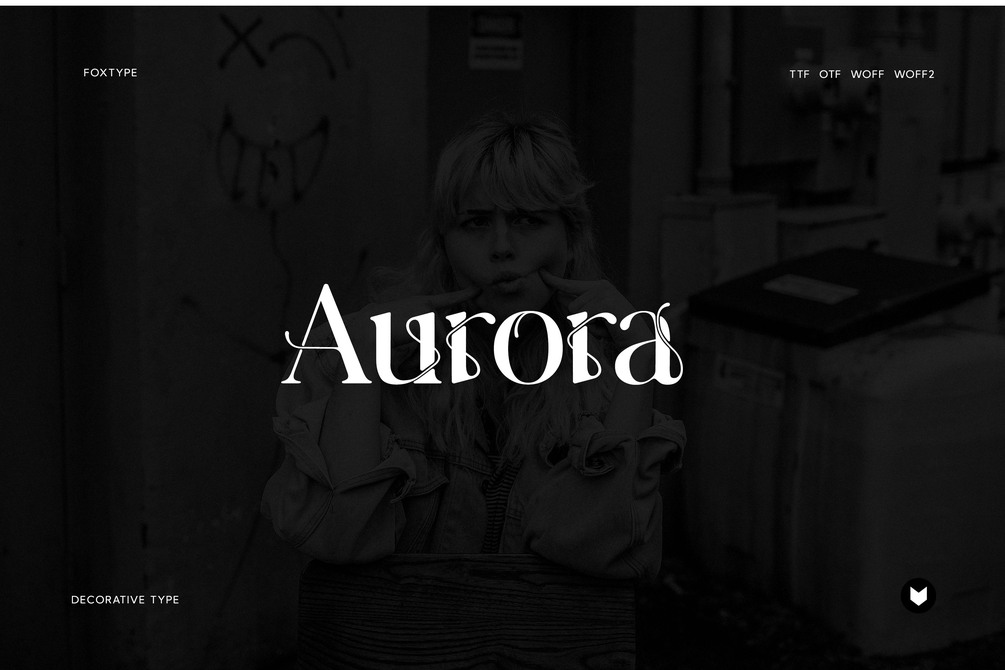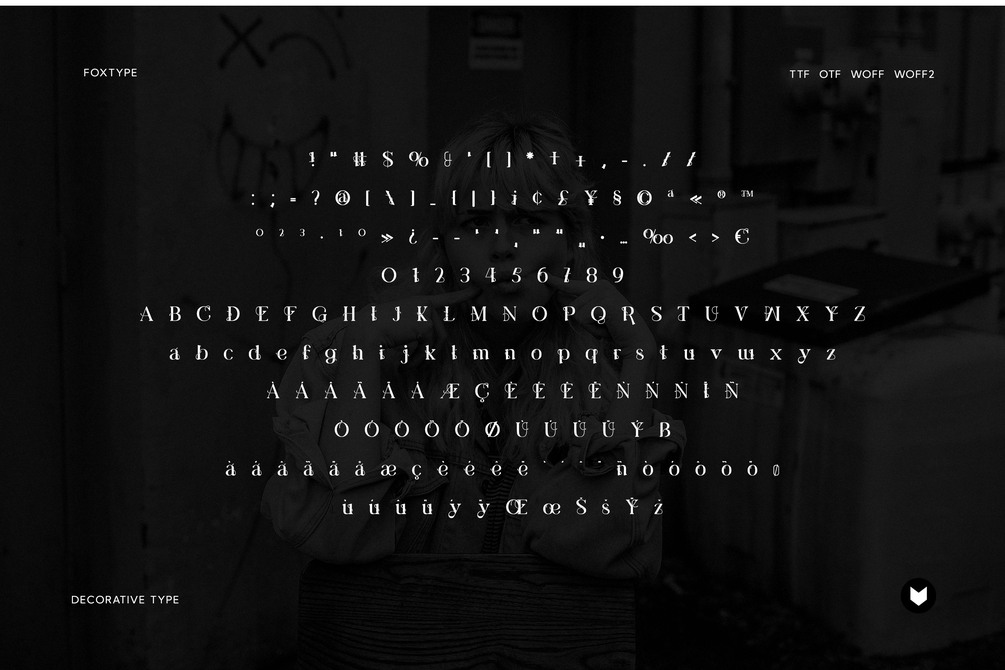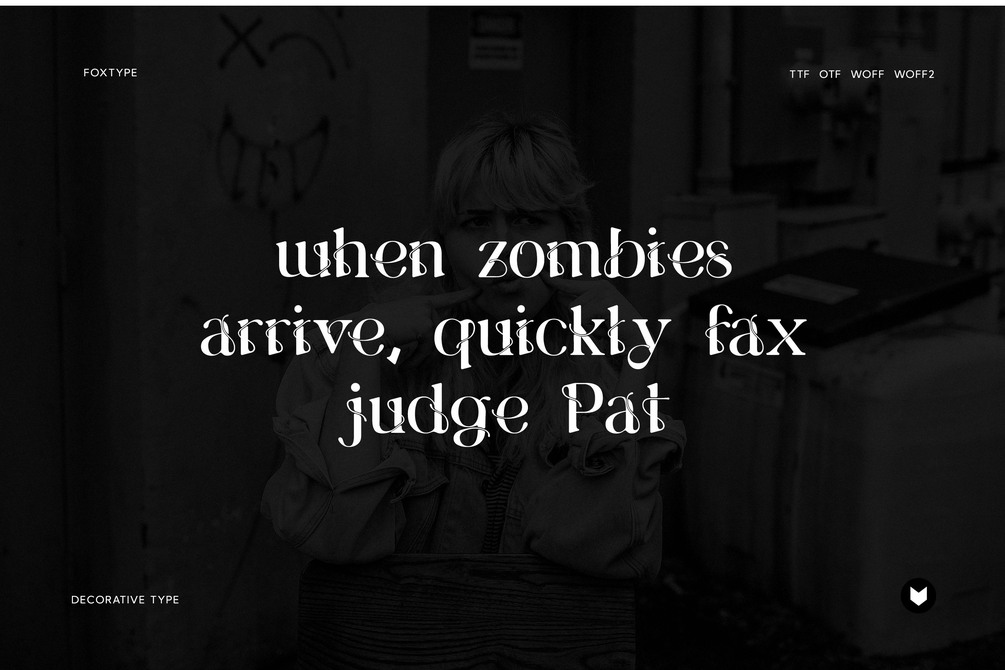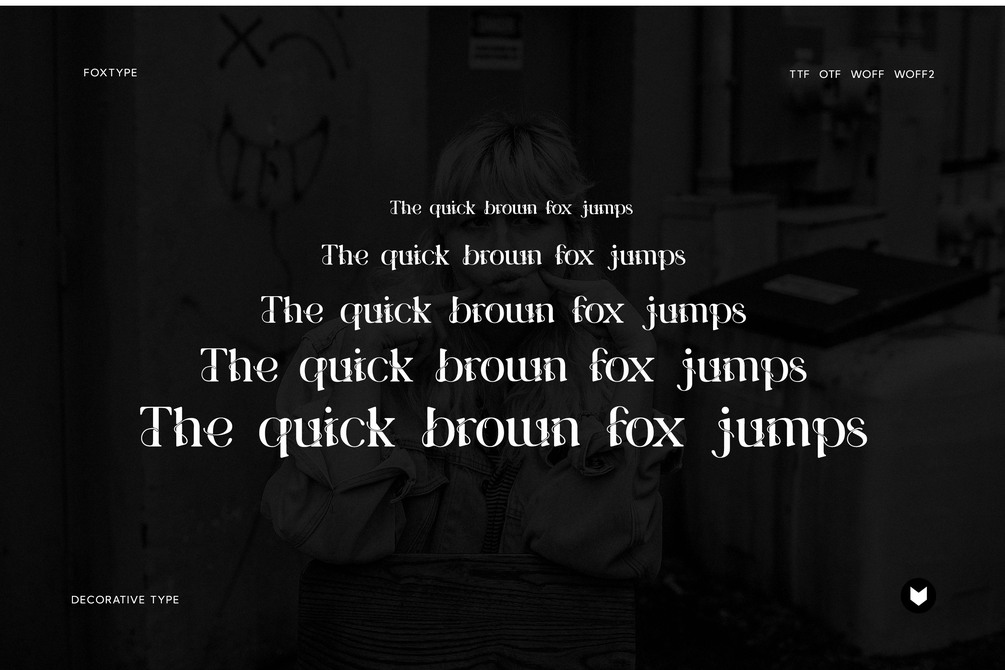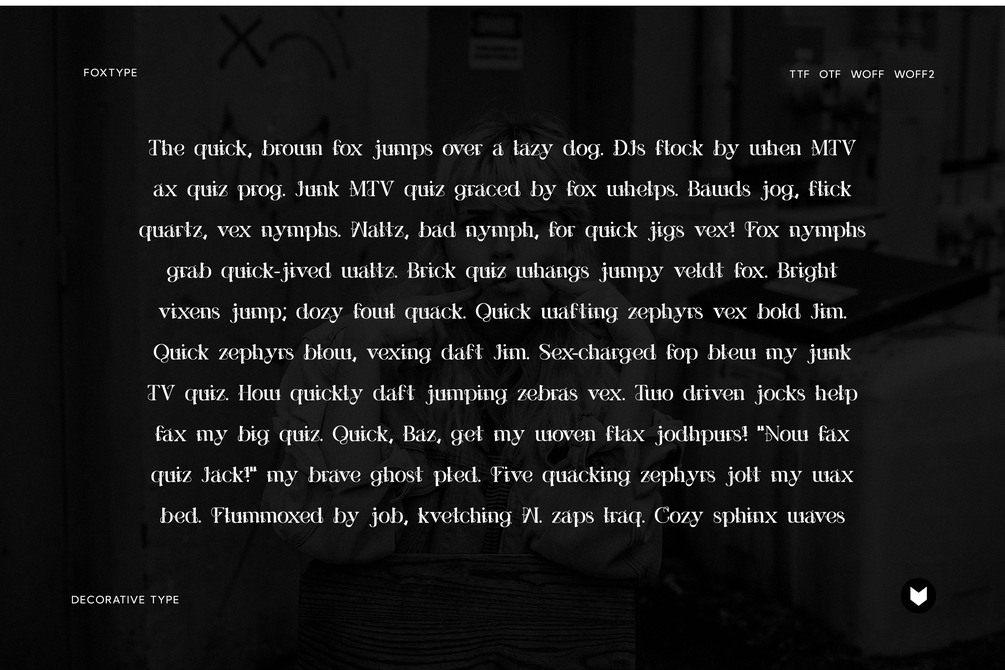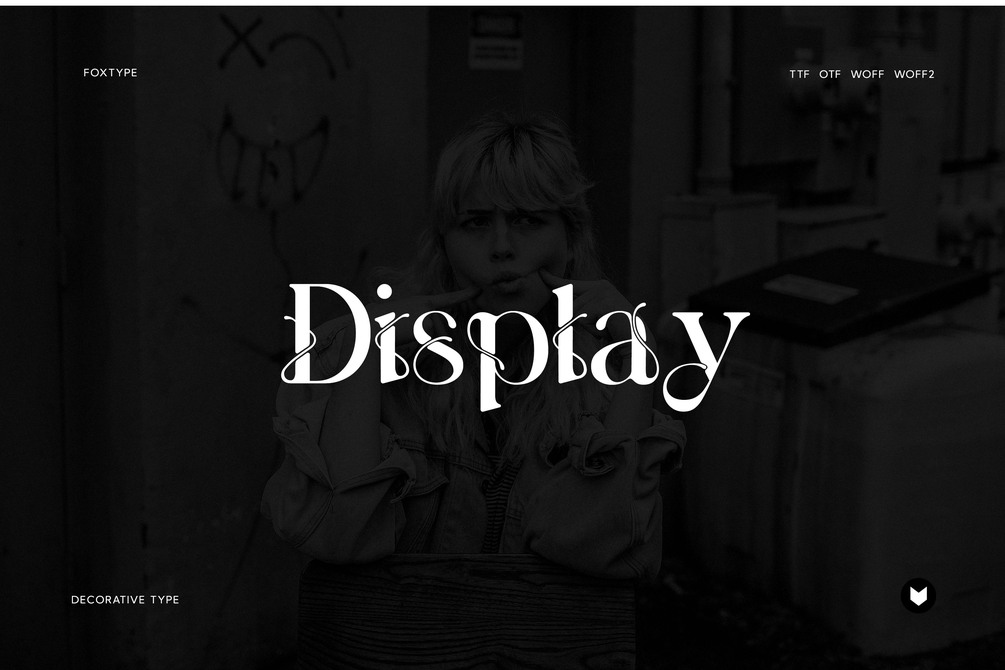
Aurora Decorative Typeface
Aurora Display is a Modern Elegant Typeface with Web-fonts. It's a very versatile font that works great in large and small sizes. Aurora Display would perfect for branding, logos, headlines, Captions. or simply as a stylish text overlay to any background image.